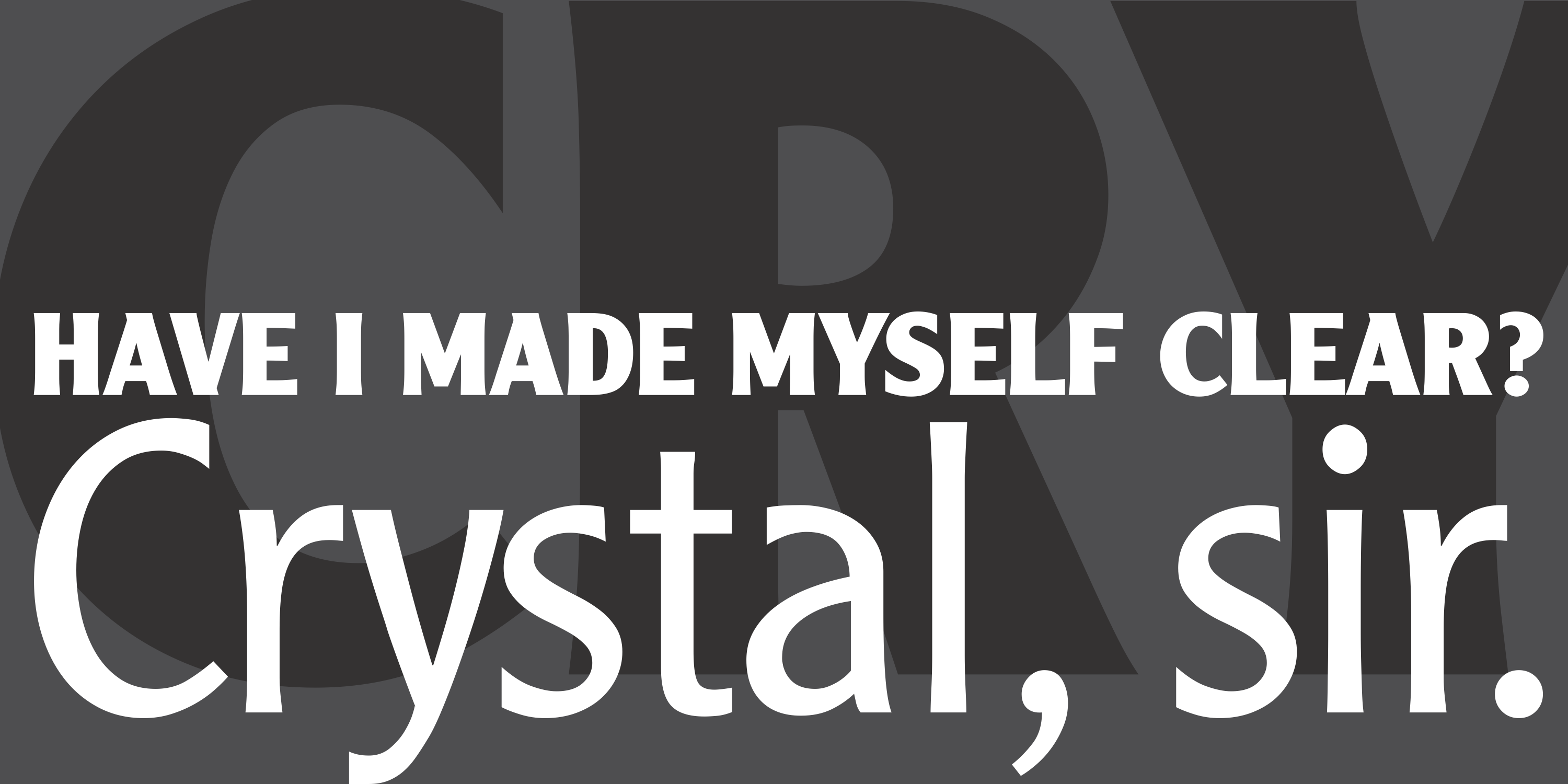
The Clearface Gothic Font is an outstanding choice for projects that demand a blend of classic American typography, robust readability, and a friendly, open aesthetic. As a distinguished sans-serif, it's perfectly suited for book covers, editorial layouts, corporate communications, packaging design, advertising campaigns, and any design that requires a clear, inviting, and highly legible presence. Its unique character, combining geometric simplicity with humanistic warmth, makes it ideal for conveying a sense of trustworthiness, approachability, and timeless appeal.
What makes Clearface Gothic Font so exciting is its exceptional balance of clarity and character. Unlike more rigid geometric sans-serifs, it possesses subtle humanistic qualities, such as open counters and a slightly wider stance, which enhance its readability and give it a warmer, less sterile feel. This font doesn't just convey information; it invites the reader in, making long blocks of text comfortable and engaging. It excels at delivering a clear message with a friendly disposition, making your content feel both professional and incredibly approachable. Its enduring popularity stems from its versatility and its ability to consistently deliver a clean yet distinctive look.
The Clearface Gothic Font family is typically comprehensive, offering a wide array of weights and styles to provide maximum flexibility for designers. You can expect a full spectrum from Light and Regular to Medium, Bold, and Black, often accompanied by complementary italic versions for each weight. This broad family allows for sophisticated typographic hierarchies, enabling precise control over emphasis, flow, and visual balance within your designs. Some versions might also include condensed styles, specialized numerals, or other OpenType features to further enhance its utility.
Whether you're designing a classic publication, crafting a strong corporate identity, or creating compelling marketing materials, the Clearface Gothic Font Free Download offers an indispensable tool. Its clear readability and friendly, enduring appeal make it a premier choice for any project that requires a typeface of lasting quality and professional polish.